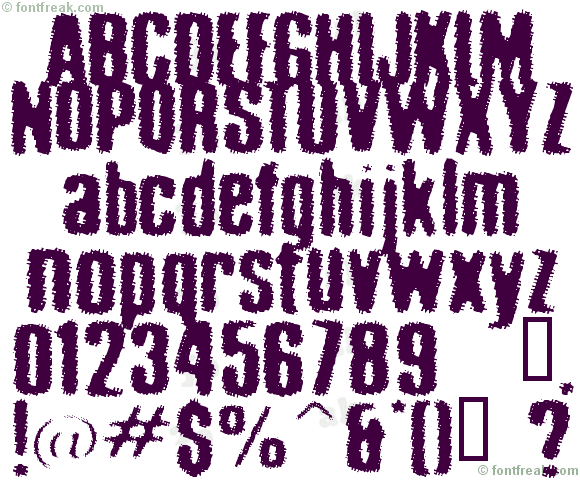
acid_reflux
About acid_reflux
The acid_reflux font by Pennyzine is a striking display typeface that exudes a sense of urgency and raw energy. This freeware font, generated by Fontographer 4.1, features an unconventional style that combines jagged edges and a distressed appearance, making it stand out in a crowded marketplace. The unique stroke weight varies throughout the characters, creating a dynamic visual rhythm that draws the eye. The contrast is pronounced, with bold, thick strokes juxtaposed against thinner, more delicate lines, giving it a rebellious character. The spacing is tight yet intentional, enhancing the overall chaotic aesthetic without sacrificing legibility.
The acid_reflux font is ideal for a variety of creative applications. It works exceptionally well for music event posters, where its energetic vibe can capture the essence of a live performance. Additionally, it can be effectively used in branding for alternative or edgy brands, lending a distinctive personality to logos and merchandise. For content creators, this font can add a punchy flair to social media graphics, especially when targeting a youthful audience. Moreover, the acid_reflux font can enhance the visual narrative in graphic novels or zines, providing a fitting backdrop for unconventional storytelling.
Targeting graphic designers, small business owners, and content creators, this font offers a unique solution for those looking to make a bold statement. Its unconventional style appeals to those who appreciate the avant-garde and seek to push boundaries in design. The acid_reflux font free download opens up possibilities for anyone eager to explore its distinctive attributes. In a world filled with generic typefaces, acid_reflux stands out with its raw, expressive character, making it a valuable addition to any designer's toolkit.